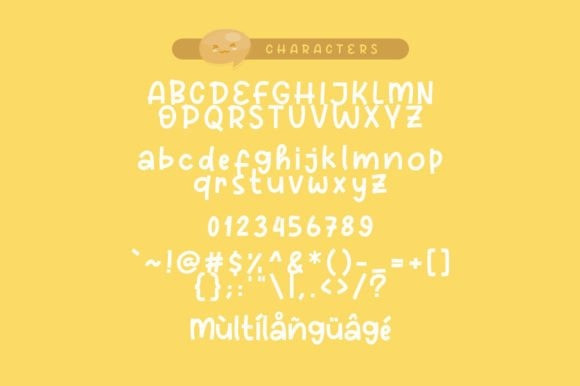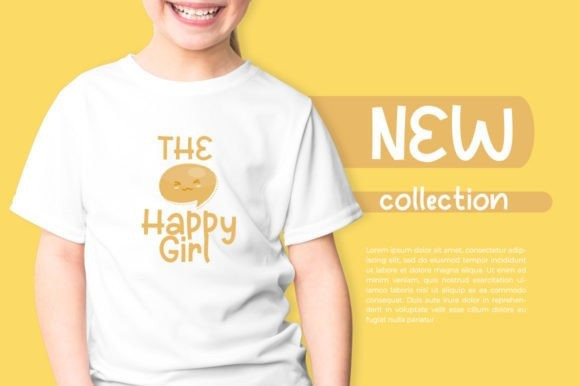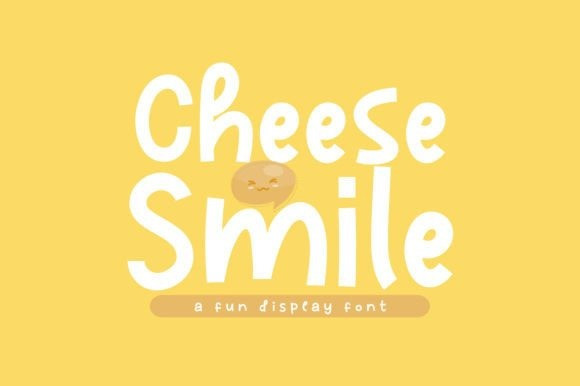
Cheese Smile Font
Cheese Smile Display Font is a fun and cool display font. Whether you use it for cartoon-related designs, children’s games, or just any creation that requires a playful touch, this font is the perfect choice for your designs!